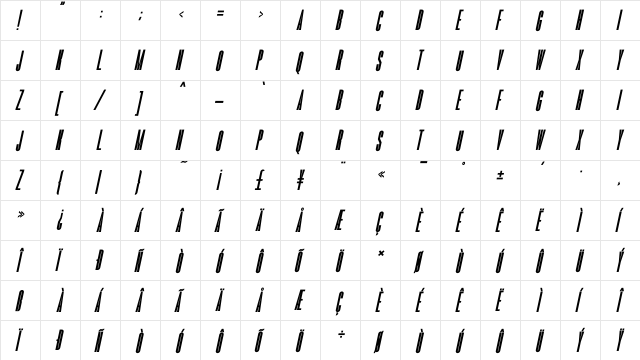
Romestone Italic Regular
| Designer | Almarkhatype 2019-Abdul Malik Wisnu |
Design Context for Romestone Italic Typeface
Romestone Italic is a composed and adaptable typeface that performs quietly and consistently across a wide range of design contexts. The dynamic lean of this cut emphasises speed and emphasis in any layout.
Pro Tip: Use Romestone Italic for emphasis, pull quotes, and subheadings where its slanted energy can add rhythm to the layout.